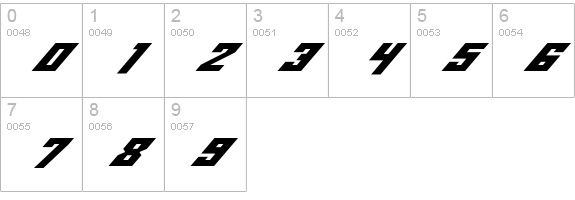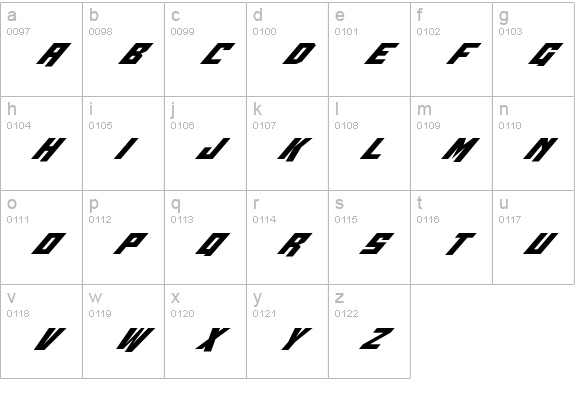
Whiskey Bravo Victor Italic is a distinctive, italic variant in the Whiskey typeface family \xE2\x80\x94 well suited to design and typography projects.
Whiskey Bravo Victor Italic font is a stunning typeface that effortlessly combines elegance and modernity. Its sleek and sophisticated letterforms exude a sense of timeless beauty, making it a perfect choice for a wide range of design projects. The italicized slant of this font adds a touch of dynamic flair, giving your text a subtle sense of movement and energy. Whether you're designing a logo, creating a stylish invitation, or crafting a striking headline, Whiskey Bravo Victor Italic font will elevate your work to new heights. One of the most remarkable aspects of this font is that it is completely free. Yes, you read that right – Whiskey Bravo Victor Italic font is freely available to download at FontsMarket.com. This means that you can enhance your designs with this exceptional typeface without worrying about any financial constraints. In addition to its affordability, Whiskey Bravo Victor Italic font also offers excellent versatility. It is compatible with various design software and can be used on both Mac and PC platforms. This means that you can seamlessly integrate this font into your existing design workflow and create stunning visuals with ease. The attention to detail in the Whiskey Bravo Victor Italic font is truly impressive. Each letterform is meticulously crafted to ensure clarity and legibility, even at smaller sizes. The well-defined curves, graceful strokes, and precise alignment make this font a joy to work with. Whether you're a professional designer or a hobbyist, Whiskey Bravo Victor Italic font is a must-have addition to your font library. Its combination of elegance, versatility, and affordability makes it a valuable asset for any creative project. So why wait? Head over to FontsMarket.com and download Whiskey Bravo Victor Italic font today. Elevate your designs with this remarkable typeface and unlock a world of creative possibilities.